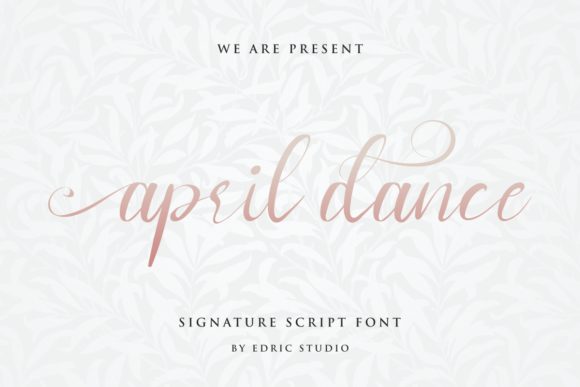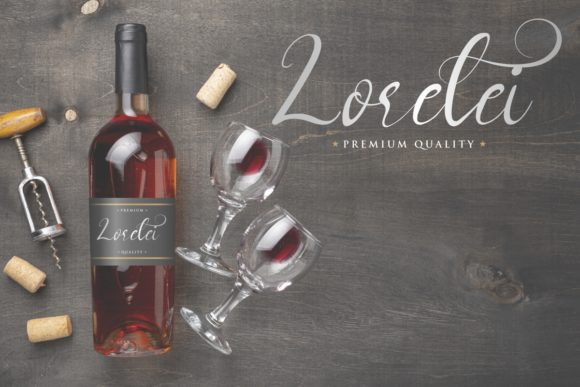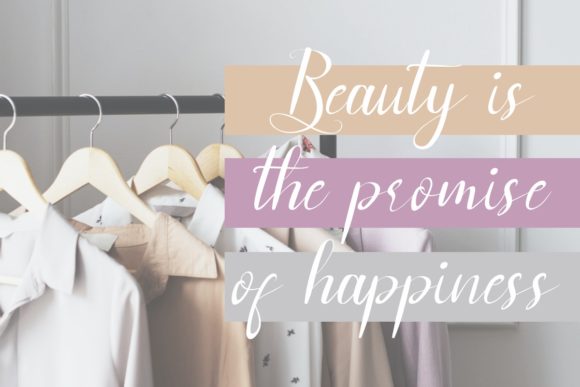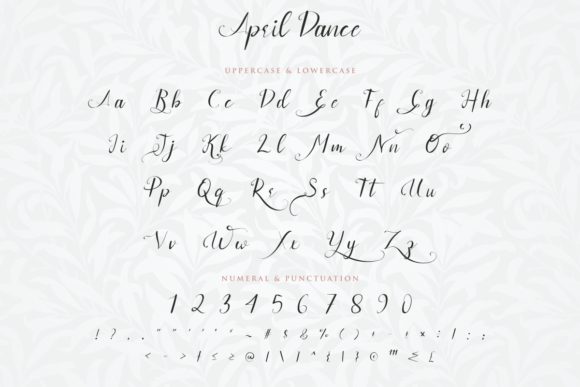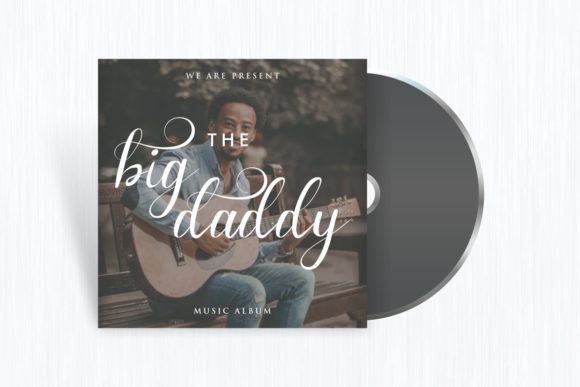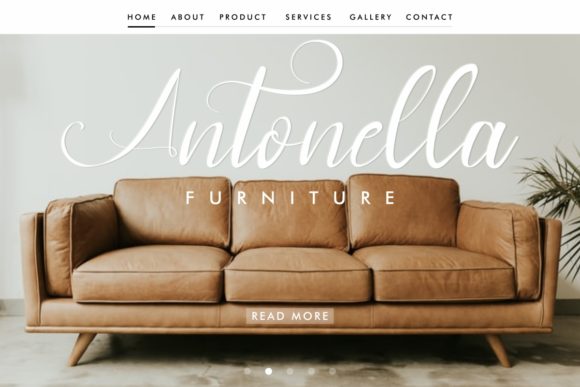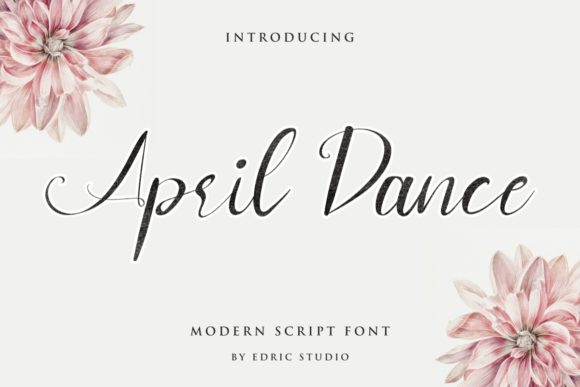
Introducing April Dance Font: The Perfect Choice for Elegant Designs
Are you a designer or crafter looking for a font that exudes elegance and sophistication? Look no further than the April Dance Font. This delicate and elegant handwritten font is perfect for a variety of designs that require a personalized touch. From wedding invitations to greeting cards, logos, and more, April Dance Font is the ideal choice for adding a touch of refinement to your creations.
What Makes April Dance Font So Special?
April Dance Font is a unique and beautiful handwritten font that is sure to capture the attention of your audience. Its delicate and elegant strokes make it perfect for designs that require a touch of sophistication. The font is highly versatile and can be used for a wide range of projects, including:
- Wedding invitations and wedding cards
- Thank you cards and greeting cards
- Stationery and letterheads
- Signs and posters
Why Choose April Dance Font?
There are many reasons why April Dance Font stands out from the rest. Here are just a few:
- Elegant and sophisticated: April Dance Font has a unique and elegant style that is sure to add a touch of sophistication to your designs.
- Highly versatile: The font can be used for a wide range of projects, from wedding invitations to logos and branding materials.
- Easy to read: Despite its elegant style, April Dance Font is highly legible and easy to read, making it perfect for designs that require a clear and concise message.
- Personalized touch: The font’s handwritten style adds a personal touch to your designs, making them stand out from the rest.
How to Use April Dance Font in Your Designs
Using April Dance Font in your designs is easy. Here are a few tips to get you started:
- Pair it with other fonts: April Dance Font pairs well with other fonts, such as sans-serif fonts, to create a beautiful contrast.
- Use it for headings and titles: The font’s elegant style makes it perfect for headings and titles, adding a touch of sophistication to your designs.
- Add it to your branding materials: April Dance Font can be used to create beautiful branding materials, such as logos, business cards, and letterheads.
Here are a few tips for designers and crafters who want to get the most out of April Dance Font:
- Experiment with different colors: April Dance Font looks beautiful in a variety of colors, from soft pastels to bold and bright hues.
- Play with font sizes: The font’s elegant style makes it perfect for a range of font sizes, from large headings to smaller body text.
- Add embellishments: Consider adding embellishments, such as flowers or leaves, to your designs to create a more personalized look.
April Dance Font is a beautiful and elegant handwritten font that is perfect for designers and crafters who want to add a touch of sophistication to their designs. Its delicate and elegant strokes make it highly versatile and easy to use, and its personalized style adds a unique touch to any project. Whether you’re creating wedding invitations, logos, or greeting cards, April Dance Font is the ideal choice for adding a touch of refinement and elegance.